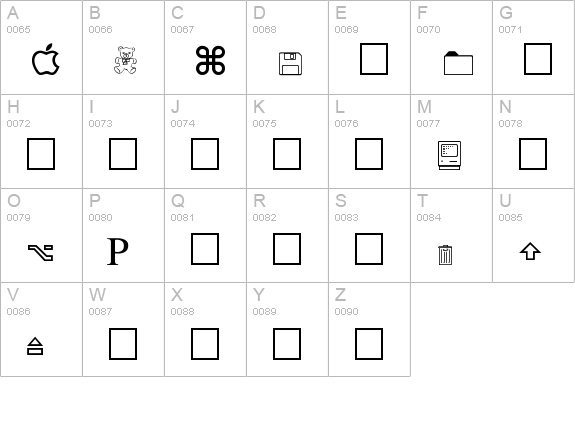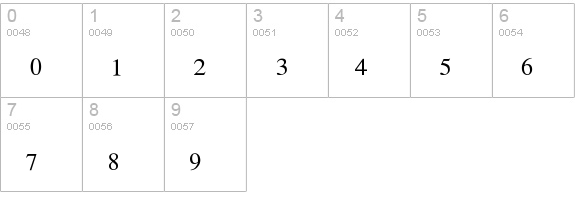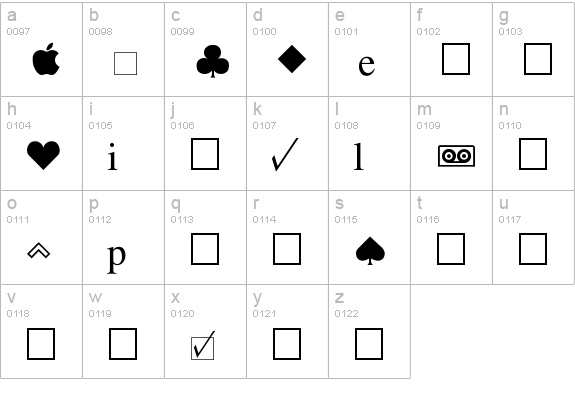
ApplePi.fog Font Details
Introducing ApplePi.fog font, a sleek and modern typeface that exudes sophistication and elegance. This versatile font is perfect for a wide range of design projects, from branding to editorial design to web graphics. With its clean lines and stylish curves, ApplePi.fog font adds a touch of class to any project. What's even better is that ApplePi.fog font is completely free to download at FontsMarket.com. Yes, you read that right – this high-quality font is available at no cost, making it accessible to designers of all levels. Whether you're a seasoned professional or just starting out, ApplePi.fog font is a valuable addition to your font library. Don't miss out on the opportunity to elevate your designs with the elegant ApplePi.fog font. Download it for free today at FontsMarket.com and see the difference it can make in your projects.